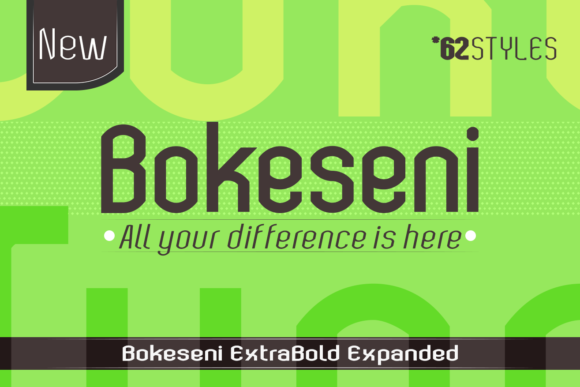
Bokeseni ExtraBold Expanded Font
About Bokeseni ExtraBold Expanded Font
Bokeseni looks bold, yet sophisticated and features chunky and extended characters that will look particularly adept when used in logos, branding, packaging design, and much more. This masterfully designed sans serif font is a true must-have.